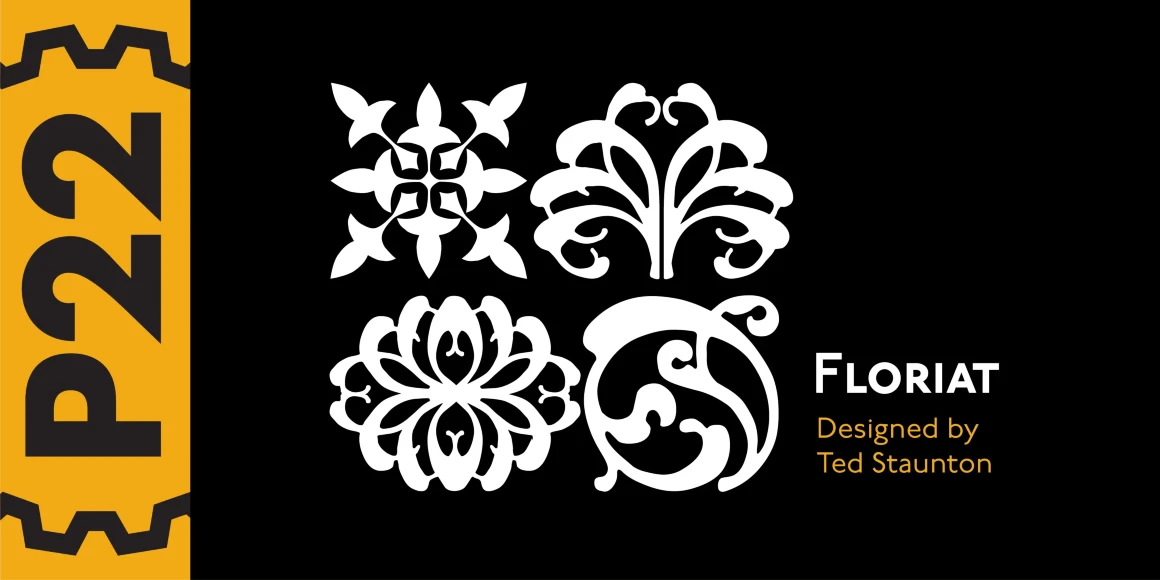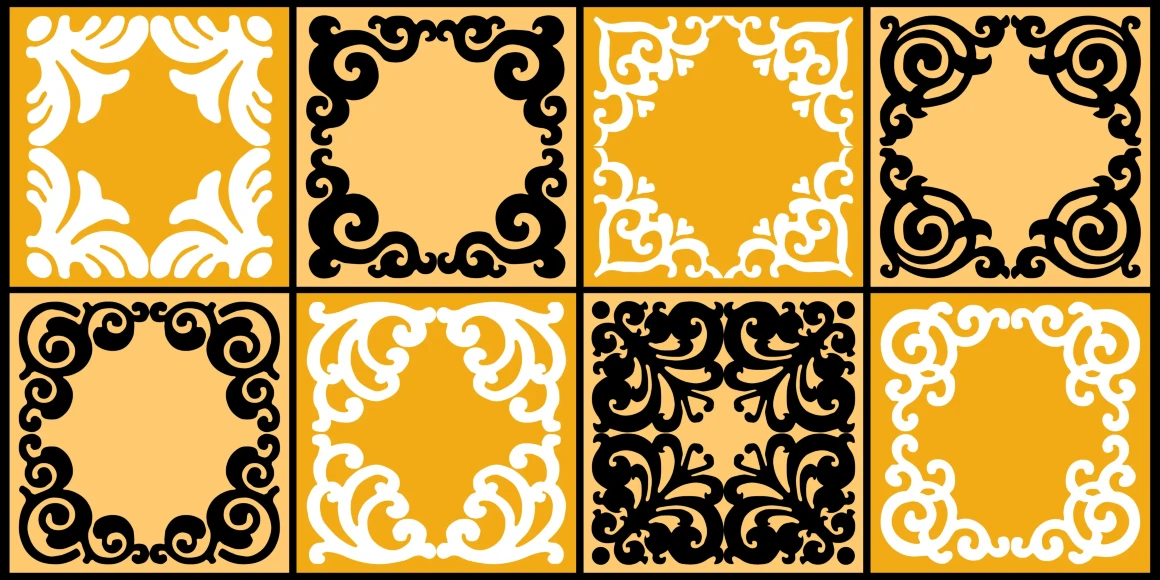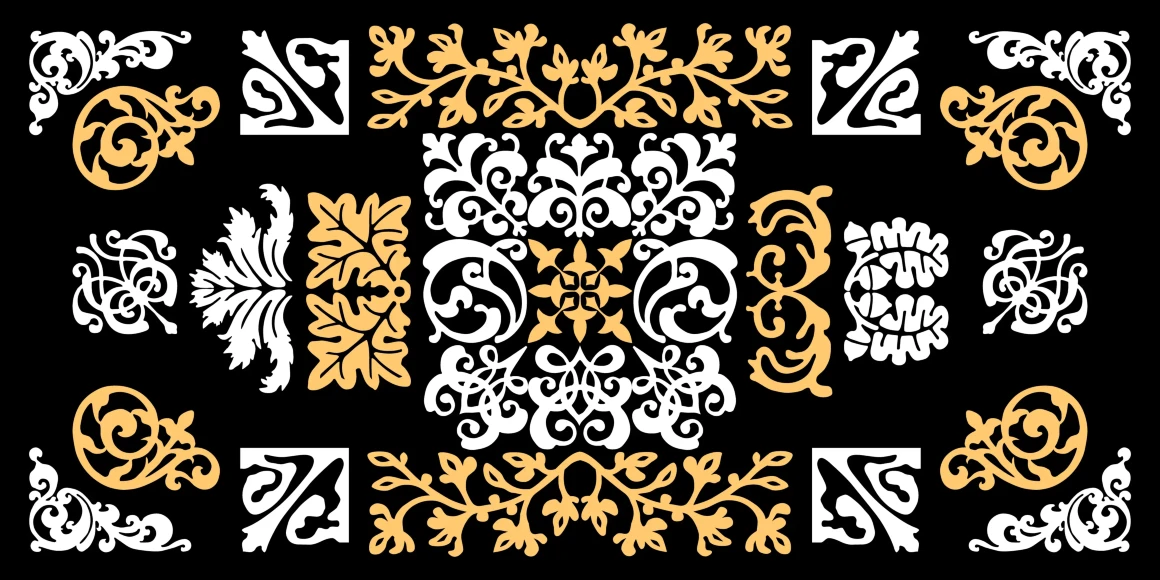
Floriat
Rich curvilinear borders and corner pieces, based on organic forms, for use as individual ornaments or as repeat units in the creation of complex shapes and patterns.
Designed by Ted Staunton